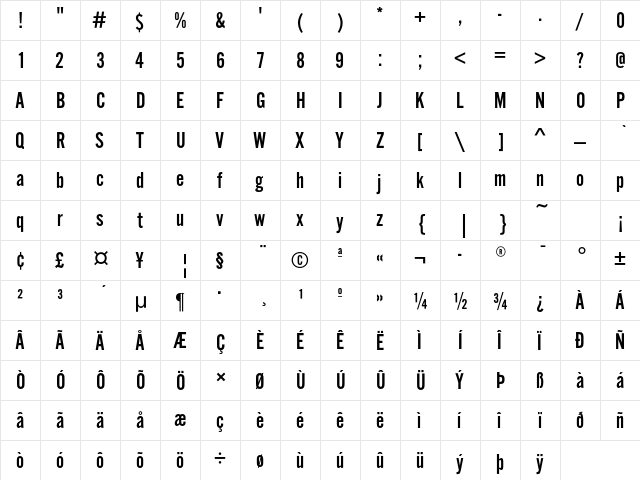
AlternateGothicEFOP-NoTwo Regular
| Foundry | Veronika Elsner, Guenther Flake GbR |
Design Context for AlternateGothicEFOP-NoTwo Typeface
AlternateGothicEFOP-NoTwo has the quiet confidence of well-executed sans-serif typography: versatile, unobtrusive, and dependable at any size.
Font Pairing: Works well alongside a characterful serif or display font that can carry the expressive load while AlternateGothicEFOP-NoTwo handles the functional copy.
Pro Tip: Pair AlternateGothicEFOP-NoTwo with a display or serif font for headlines — its neutral character makes it an excellent supporting player in complex typographic systems.